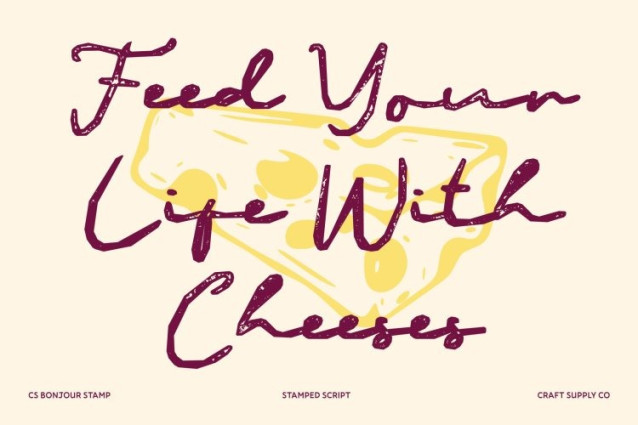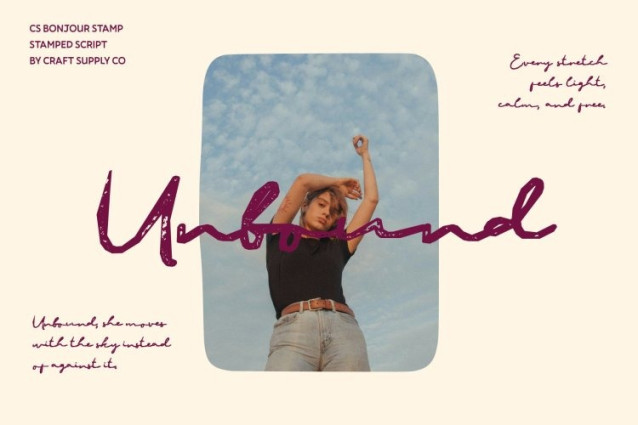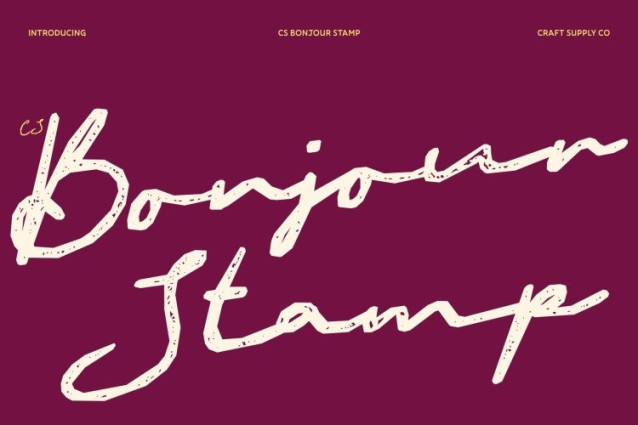
CS Bonjour Stamp Font
CS Bonjour Stamp Font This captures the fluid elegance of a real handwritten signature, now enriched with a delicate stamped texture. Its smooth, confident strokes maintain their natural rhythm, while gentle ink variations and softly distressed edges introduce a tactile, handcrafted feel. The result is a script that feels both intimate and elevated authentic yet undeniably refined.
Graceful Lines with Vintage Depth
The flowing curves and expressive pen-like strokes evoke luxury and sophistication. With the stamped finish, each letter gains subtle depth and warmth, enhancing the illusion of genuine handwriting pressed onto fine paper. This combination creates a signature style that feels modern, timeless, and beautifully personal.
Perfect for Logos and Premium Branding
This font excels in branding where individuality and prestige are essential. Its elegant signature structure elevates logos, taglines, and visual identities with a sense of exclusivity and confidence. Ideal for fashion, beauty, boutique, and lifestyle brands, it communicates sophistication with a handcrafted edge.
Ideal for Invitations and Elegant Print Designs
From wedding invitations to luxury packaging and exclusive event stationery, this font adds emotional warmth and refined charm. The textured script enhances every layout with graceful movement and artistic character, ensuring each design feels personal, stylish, and memorably luxurious.